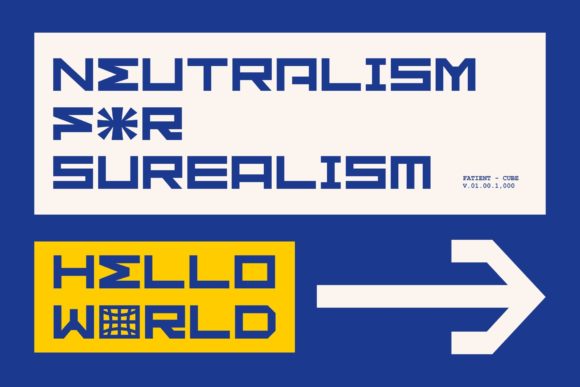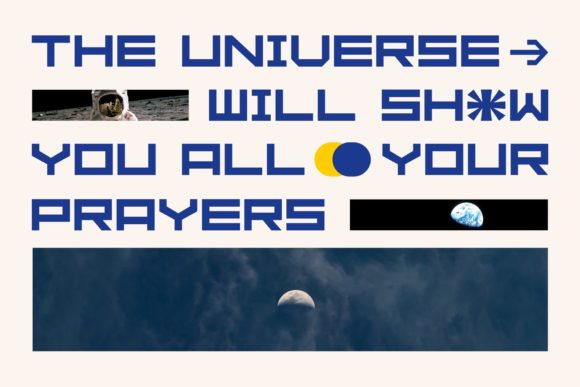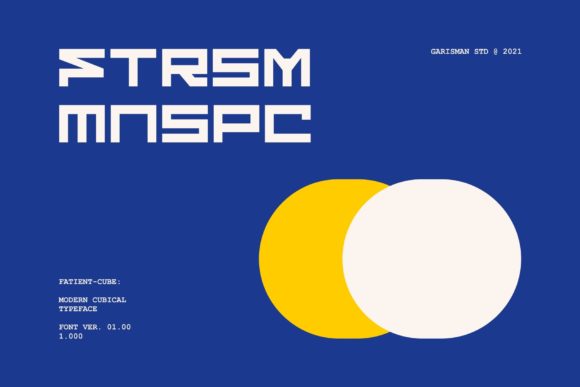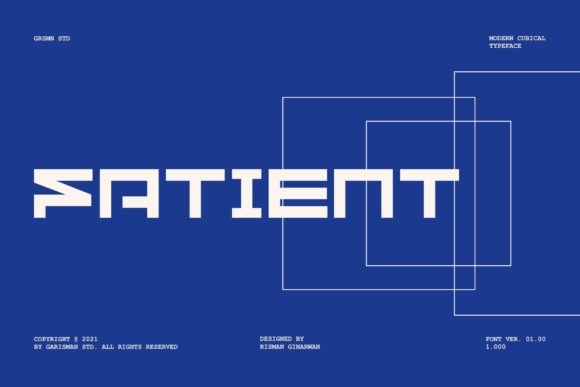
Introduction to Fatient Font
Fatient is a cool, bold and thick lettered display font.
No matter the topic, this font will be an incredible asset to your fonts’ library, as it has the potential to elevate any creation This font is PUA encoded which means you can access all of the amazing glyphs and ligatures with ease.
Key Features of Fatient Font